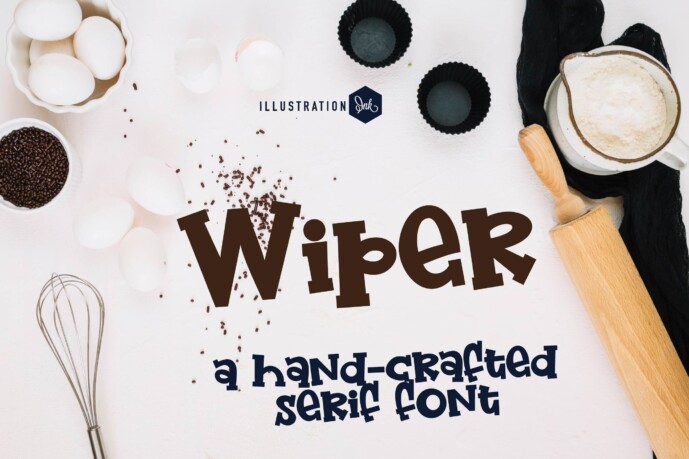
Wiper Font
Designer: Illustration Ink
Wiper Font
This hand-crafted font is a whimsical hand-crafted serif that is great for titles, displays, posters and more.
A hand-crafted font is a font that is designed to look like it was written by hand. It is often used for invitations, greeting cards, and other items. Handwritten fonts can be either formal or informal, and they can be used for a variety of purposes.